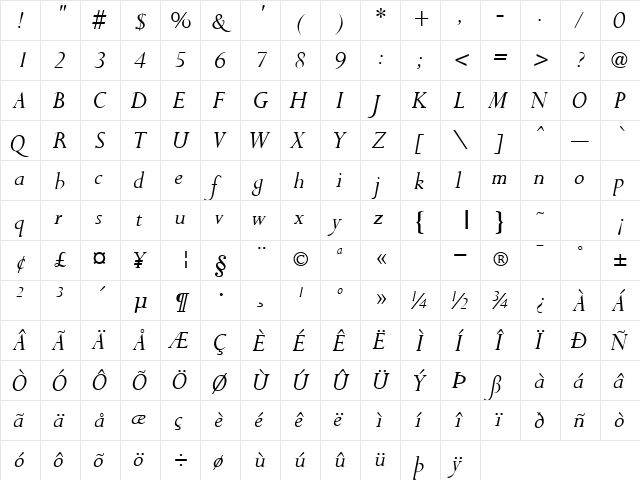
GE Pilfering Italic
Design Context for GE Pilfering Typeface
GE Pilfering offers clean, dependable letterforms without strong stylistic allegiance, making it a practical choice for designers who need flexibility. The dynamic lean of this cut emphasises speed and emphasis in any layout.
Pro Tip: Use GE Pilfering for emphasis, pull quotes, and subheadings where its slanted energy can add rhythm to the layout.